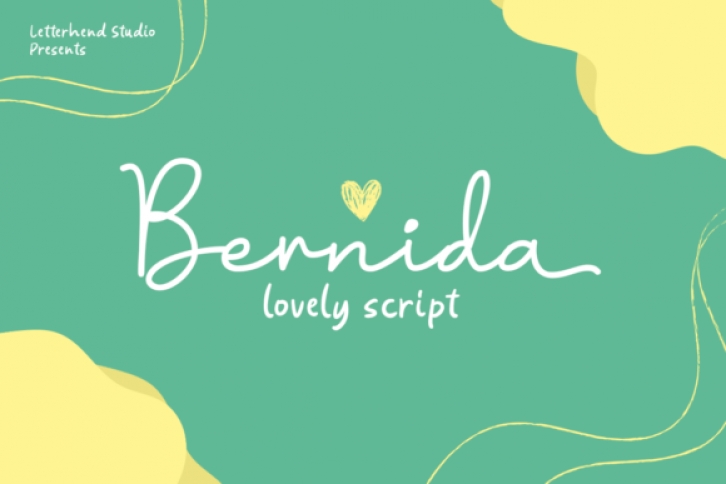
Bernida is a cute and lovely script font with a casual and playful feel. Fall in love with its incredibly versatile style and use it to create gorgeous wedding invitations, beautiful stationary art, eye-catching social media posts, and much more!